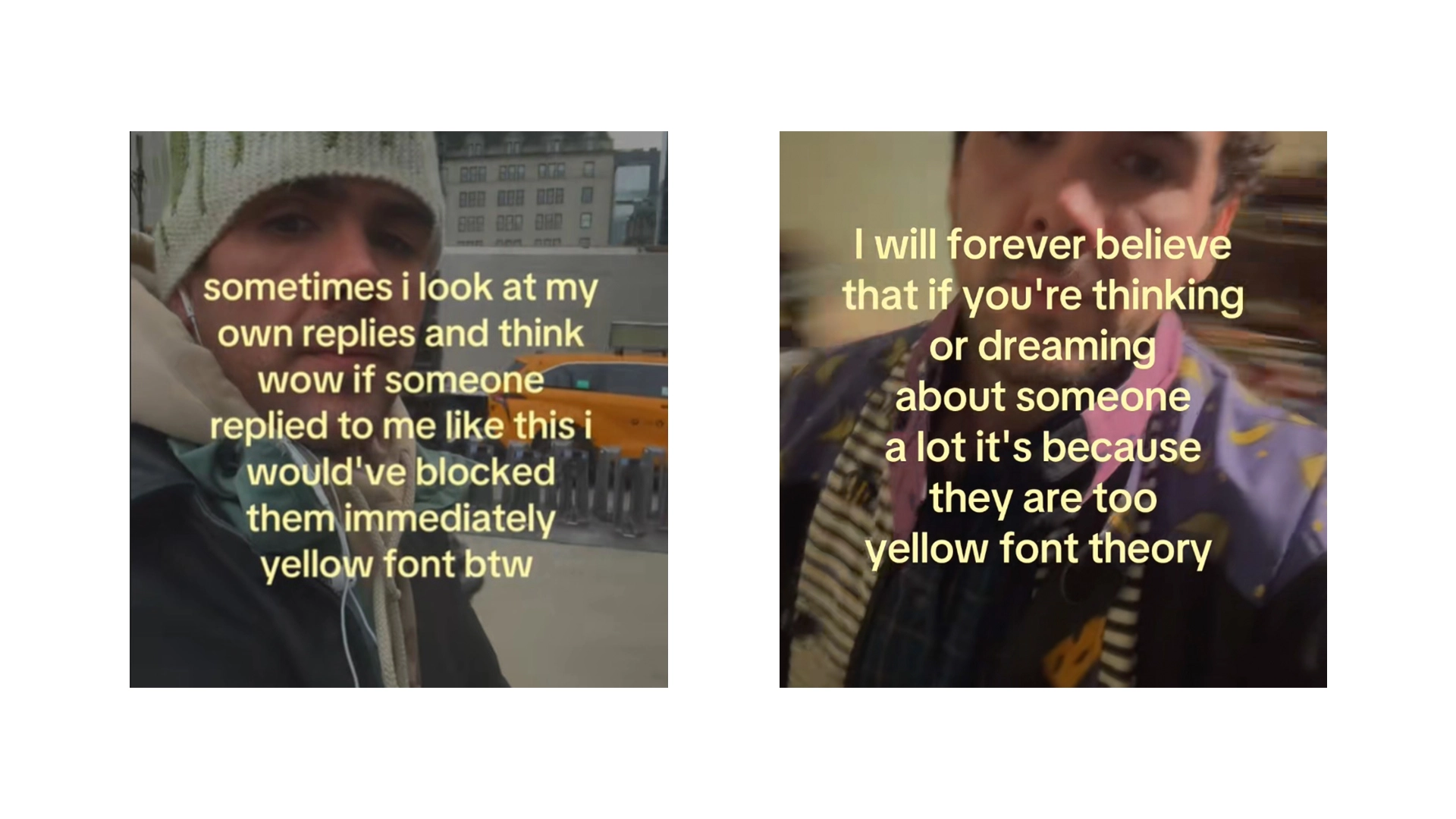
What is the yellow font trend, and why is is all over TikTok?
Spilling your soul? Do it in yellow.
TikTok trends can be hard to understand at the best of times, especially for those of us of a certain vintage. From hilarious car dealership ads to iPhone roasting, you never know what's going to get the kids going on the brain rot short-form content platform. So, what's big right now? A yellow font, apparently. (By the way, all of the best free fonts come in yellow.)
Right now, people are sharing long(ish) captions on the platform written in yellow. And, ignoring the first rule of writing—show, don't tell—they're adding the words 'yellow font' underneath. The videos are usually set to the track (You Made It Feel Like) Home, by Atticus Ross and Trent Reznor.
So, whats it all about? According to The Tab, the yellow font 'trend' simply means the user is sharing something emotionally vulnerable. As Know Your Meme puts it, "Yellow Font Theory refers to the idea that people use yellow font in their short-form video captions to signify that they're sharing an emotionally vulnerable statement or opinion with the world."
So there we have it. Yellow font = sharing something a little bit deep. But don't worry, most are using it irreverently. "As a meme, Yellow Font Theory is mostly used in an ironic capacity," adds Know Your Meme. "Some of the most popular examples of the meme feature yellow-font captions that are either emotional or ironically emotional, ending with the phrase, "Yellow font btw" or simply "yellow font.""